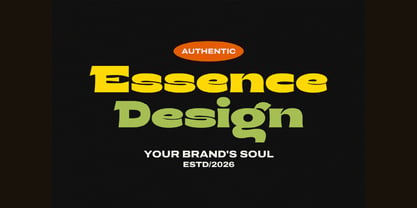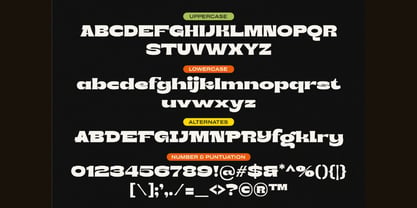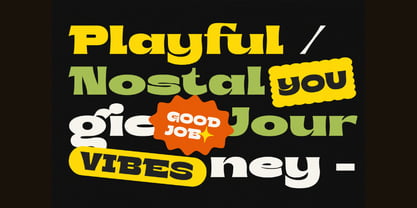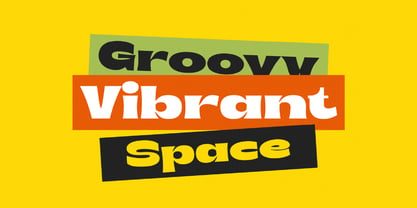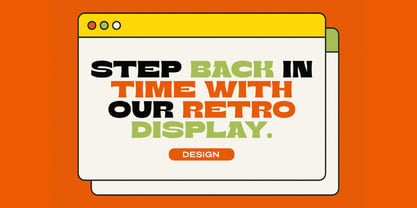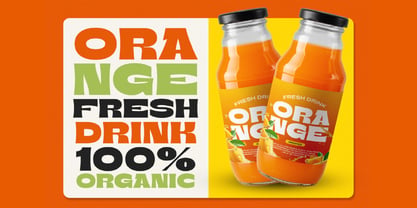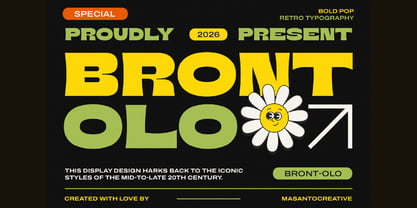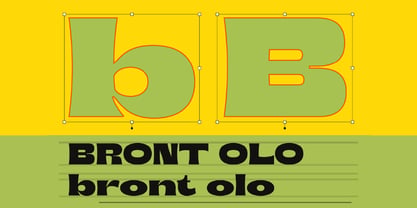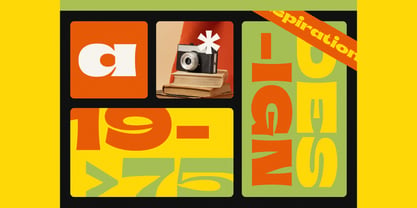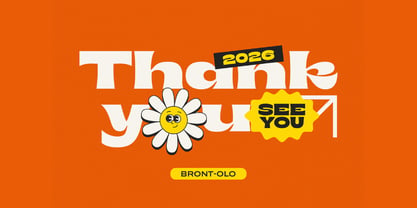
Bront Olo
by Kangfont Studio
The Bront Olo Font Family was designed by Sur Anto and published by Kangfont Studio. Bront Olo contains 1 styles. More about this family
Bront-Olo is a retro groovy display font inspired by the bold pop typography of the 60s–70s era. Featuring chunky curves, playful shapes, and a warm nostalgic feel, this typeface brings vibrant vintage energy to any design project.
Perfect for branding, packaging, posters, social media graphics, vintage ads, children’s design, merchandise, sticker design, editorial layouts, and creative retro visuals, Bront-Olo gives every composition a fun, expressive, and eye-catching personality.
This font includes uppercase, lowercase, alternates, numbers, punctuation, and multilingual support, making it versatile for both modern and nostalgic design needs.
Designers: Sur Anto
Foundry: Kangfont Studio